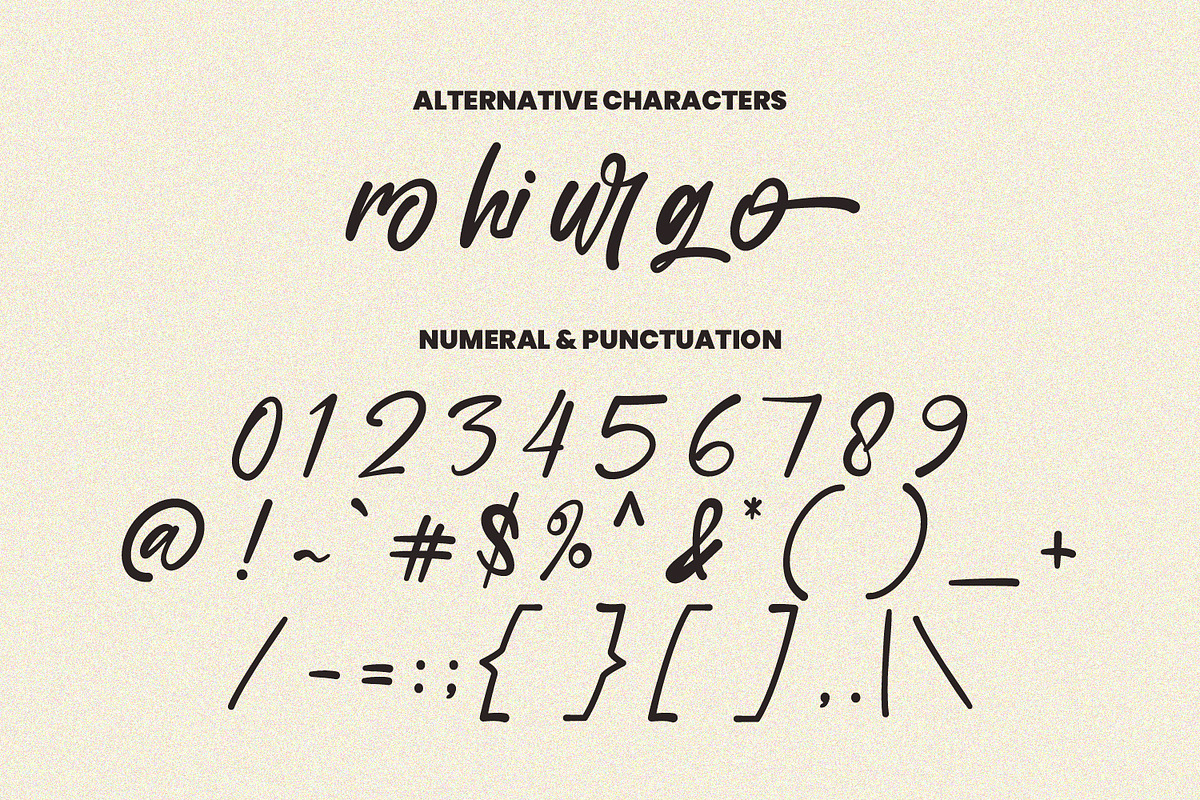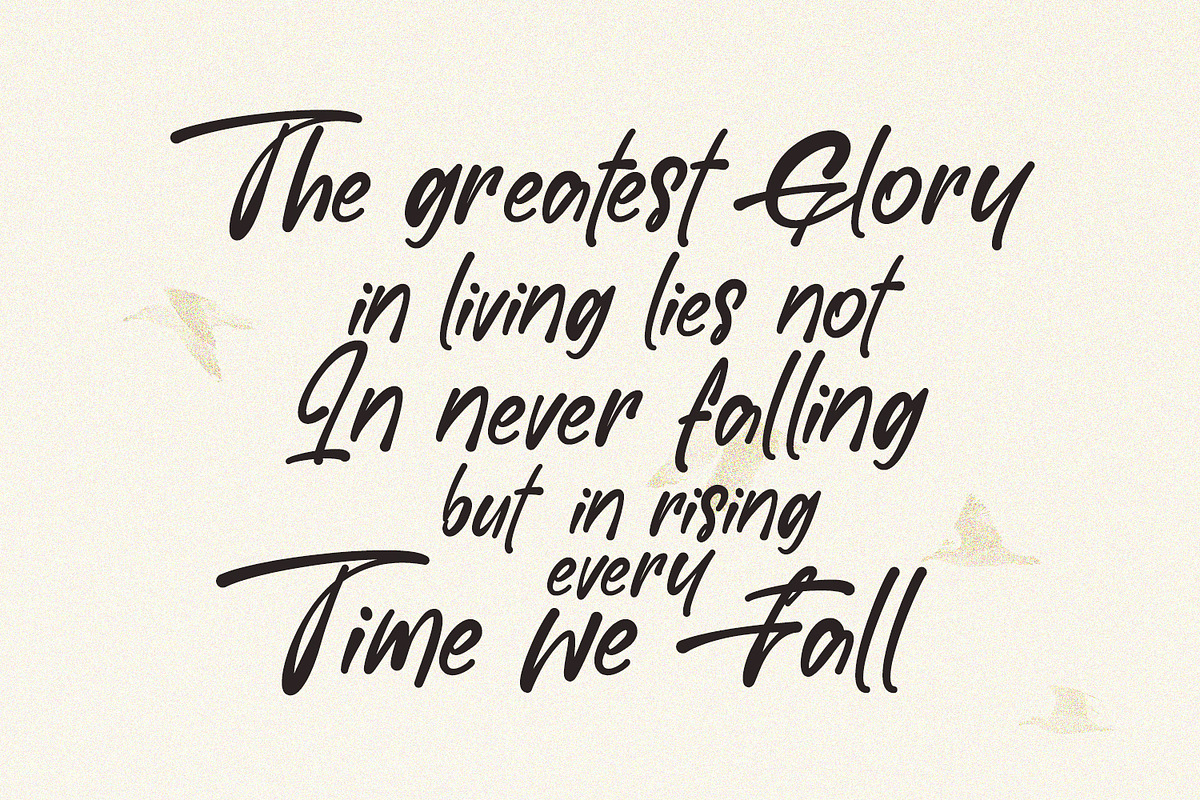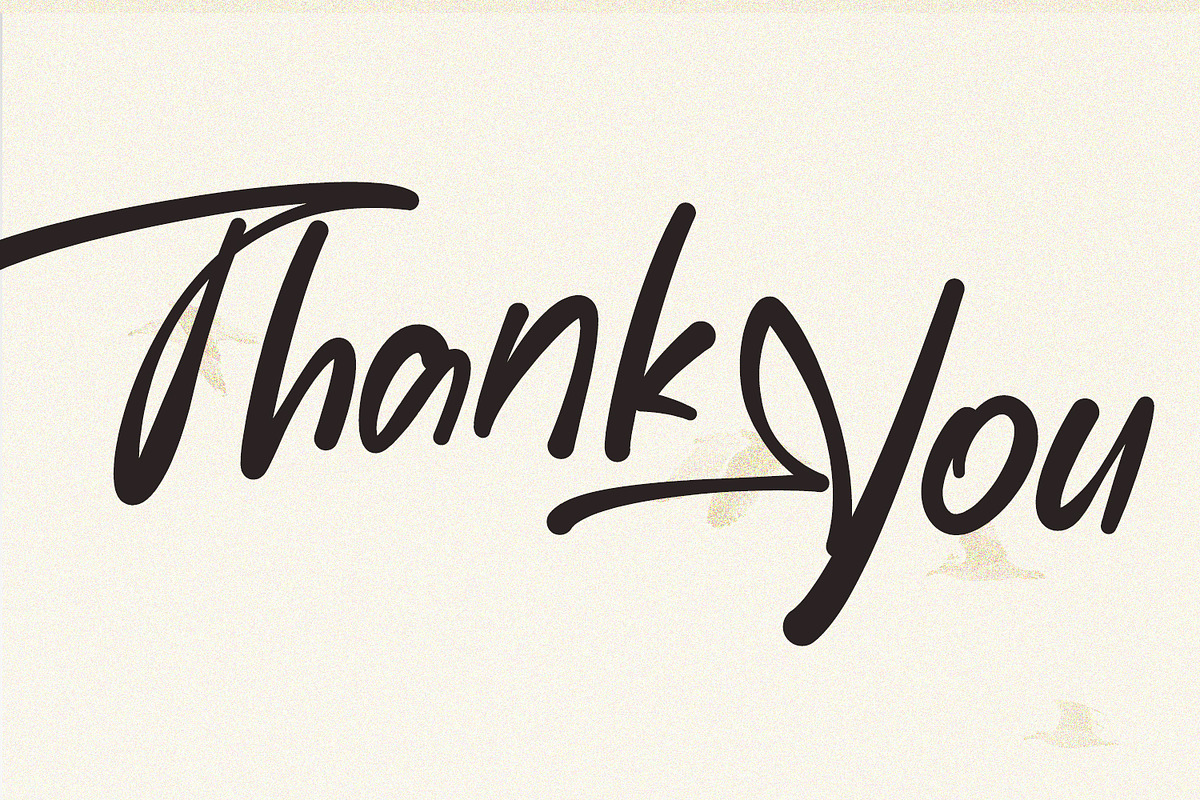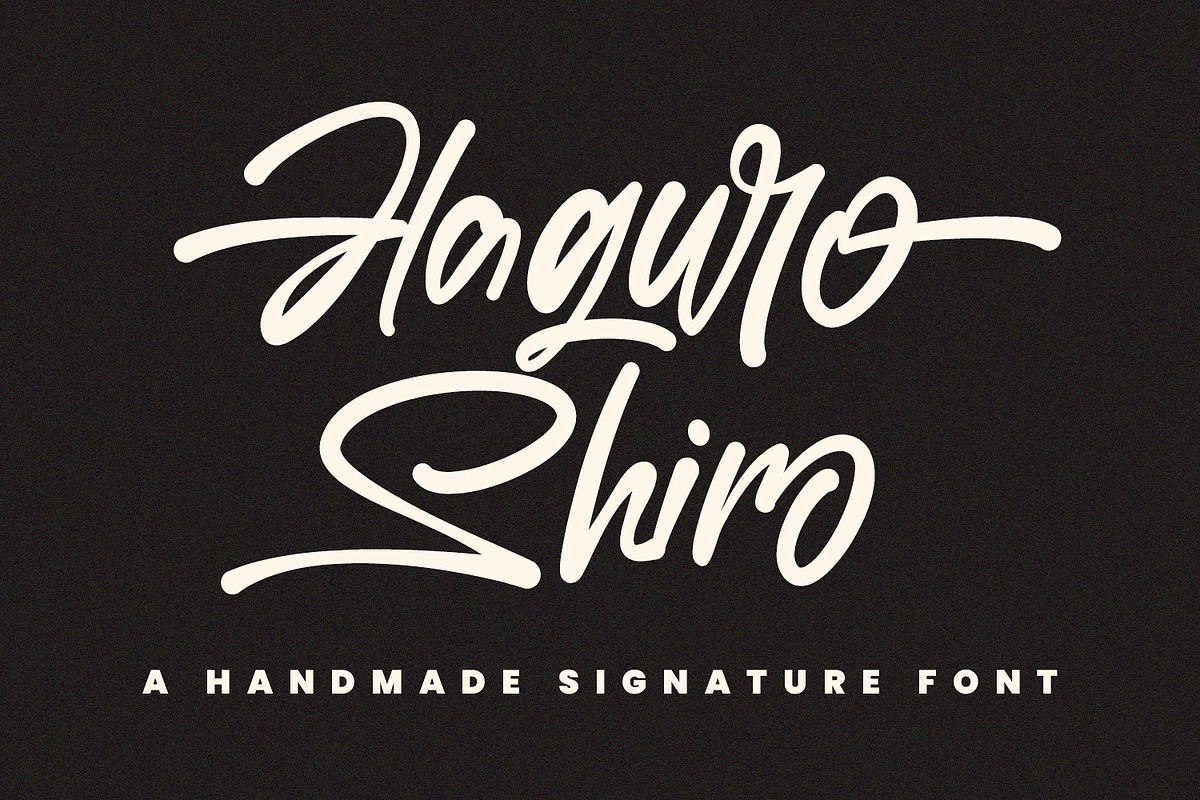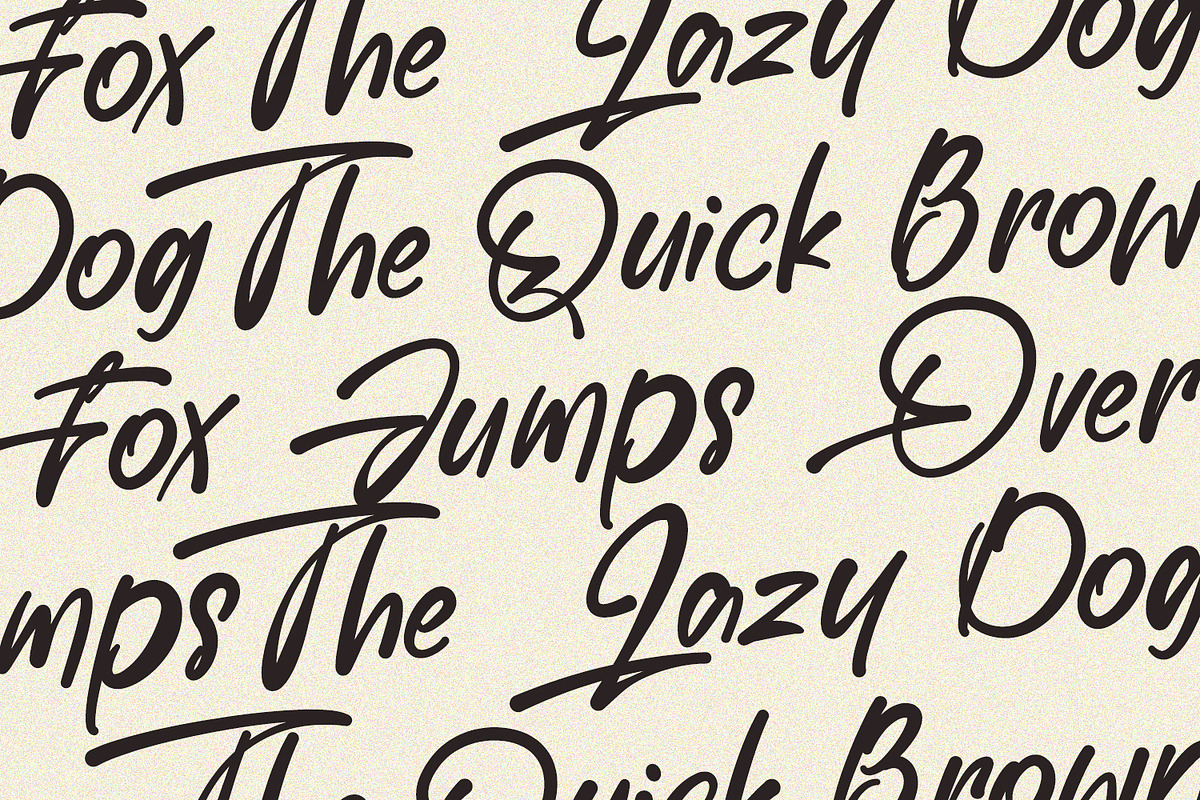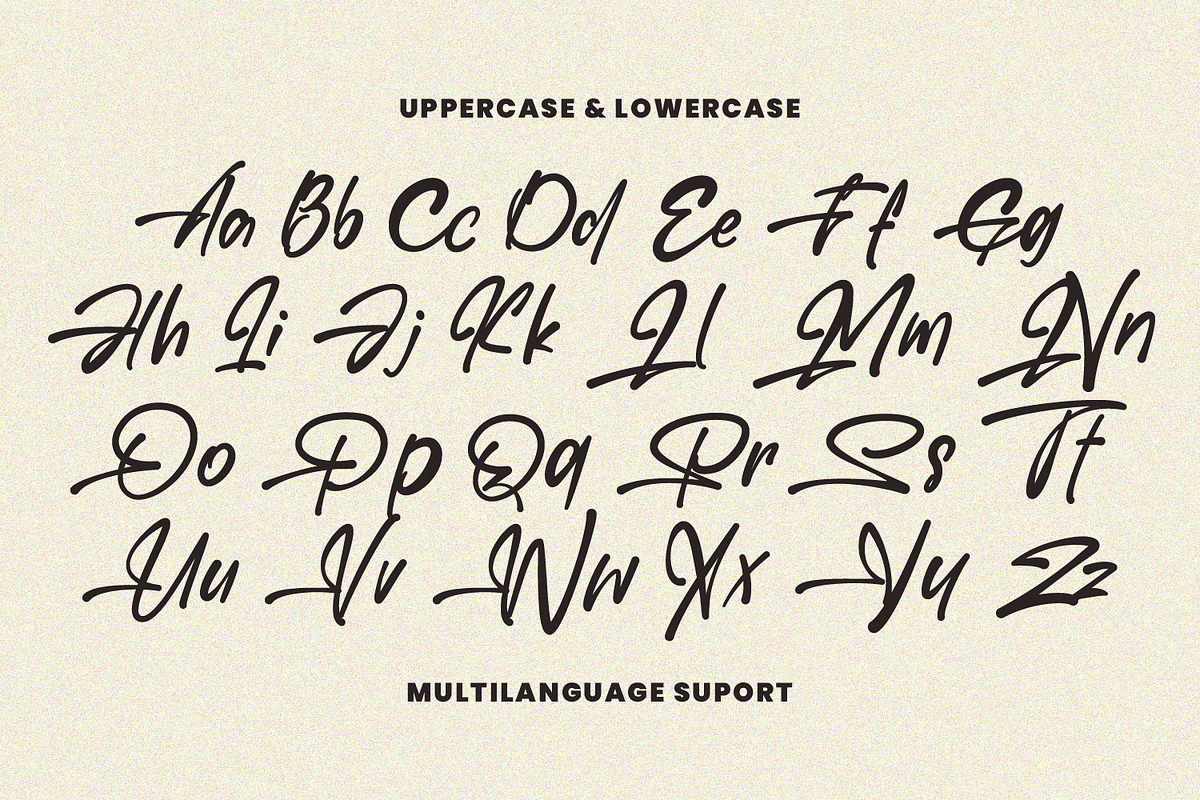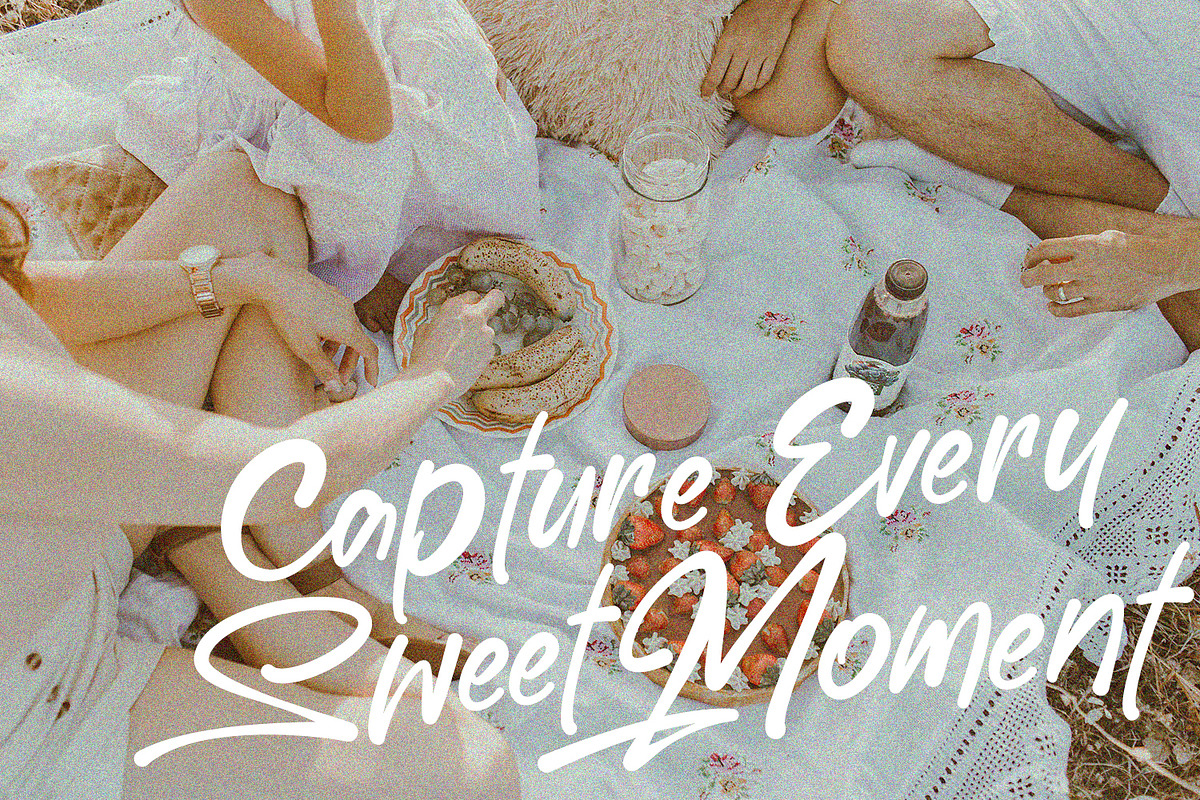
Haguro Shiro Signature Handmade Font
Give your designs an authentic handcrafted feel. “Haguro Shiro Signature Handmade Display Font” is perfectly suited to stationery, logos and much more. Include alternative character and ligature characters.
- Ligature and Alternate